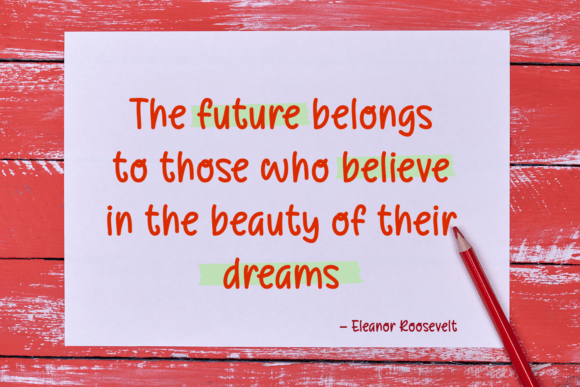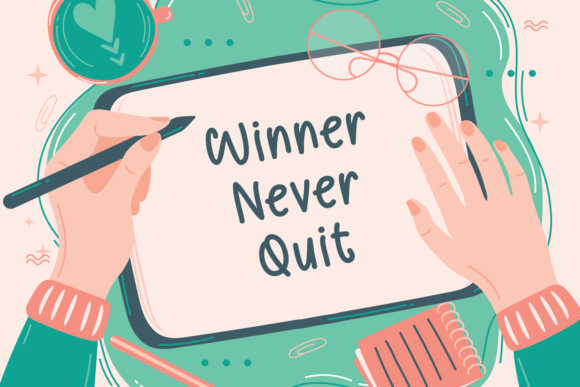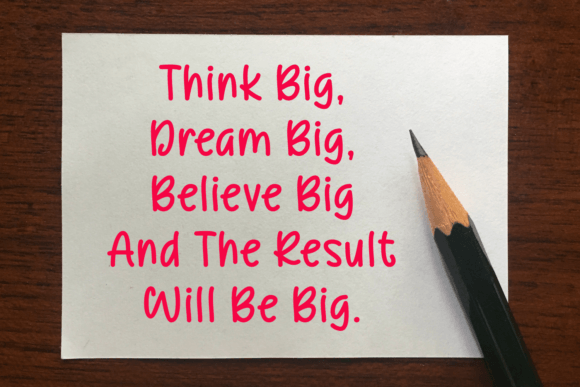
Introduction to Right Dream Font
Remember the moment when you stumbled upon the perfect design element for your creative project? The one that brought everything together and gave it that extra oomph? For designers, finding the right font can be a game-changer. It’s the difference between a good design and a great one. And, for those who have been searching for that special something, we’re excited to introduce the Right Dream Font – a high-quality, playful handwritten font that’s sure to bring a touch of magic to your designs.
With its delicate letterforms and transparent background, the Right Dream Font is a versatile design resource that can be used for a wide range of projects, from branding and packaging to social media graphics and invitations. Its charm and whimsy make it perfect for creating a sense of warmth and friendship, making it a valuable addition to any designer’s toolkit.
Key Features of Right Dream Font
- High-quality design with a transparent background, ideal for creative projects.
- Designed with precision, ensuring crisp and clear text at any resolution, up to 300 DPI.
- Unique characteristics, including elegant curves and subtle nuances, perfect for adding a touch of sophistication to any design.
- Perfect for use in a variety of creative projects, from logos and branding to typography and graphics.
Honest Review: Right Dream Font
I recently came across the Right Dream Font and I must say, it’s a fantastic addition to any designer’s toolkit. The high quality of this font is immediately apparent, making it a great choice for any creative project that requires a unique touch.
One of the standout features of the Right Dream Font is its transparent background, which allows for seamless integration with any design element. This level of flexibility is a game-changer for designers who value versatility in their design resources.
Here are some of the things that work well with the Right Dream Font:
- ✨ Unique and creative style
- ✨ High quality and clear typography
- ⚠️ Limited font family options
- ⚠️ May not be suitable for very small font sizes
Overall, I’m really impressed with the Right Dream Font. It’s a solid choice for designers looking for a high-quality, versatile font that’s perfect for a wide range of creative projects.
Tips for Getting the Most Out of Right Dream Font
For a transparent background, use Right Dream Font with a white or light-colored background. You can also experiment with different font sizes and styles to add visual interest to your design.